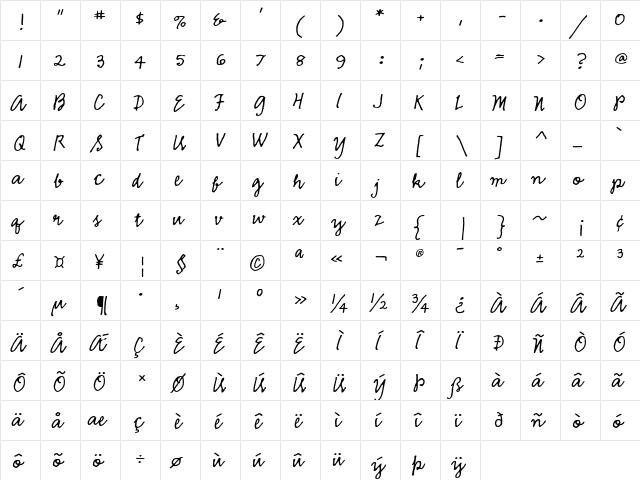
Emmascript MVB Regular Font Preview
Emmascript MVB Regular
Design Context for Emmascript MVB Typeface
Emmascript MVB brings a calligraphic fluidity to the page — its connecting strokes and expressive curves give it an unmistakably human quality.
Font Pairing: Combine Emmascript MVB with a simple geometric sans for maximum contrast — the tension between flowing curves and clean structure is a classic typographic pairing.
Pro Tip: Use Emmascript MVB for short runs of text — names, titles, or taglines. Extended body copy in script faces tires the eye quickly.